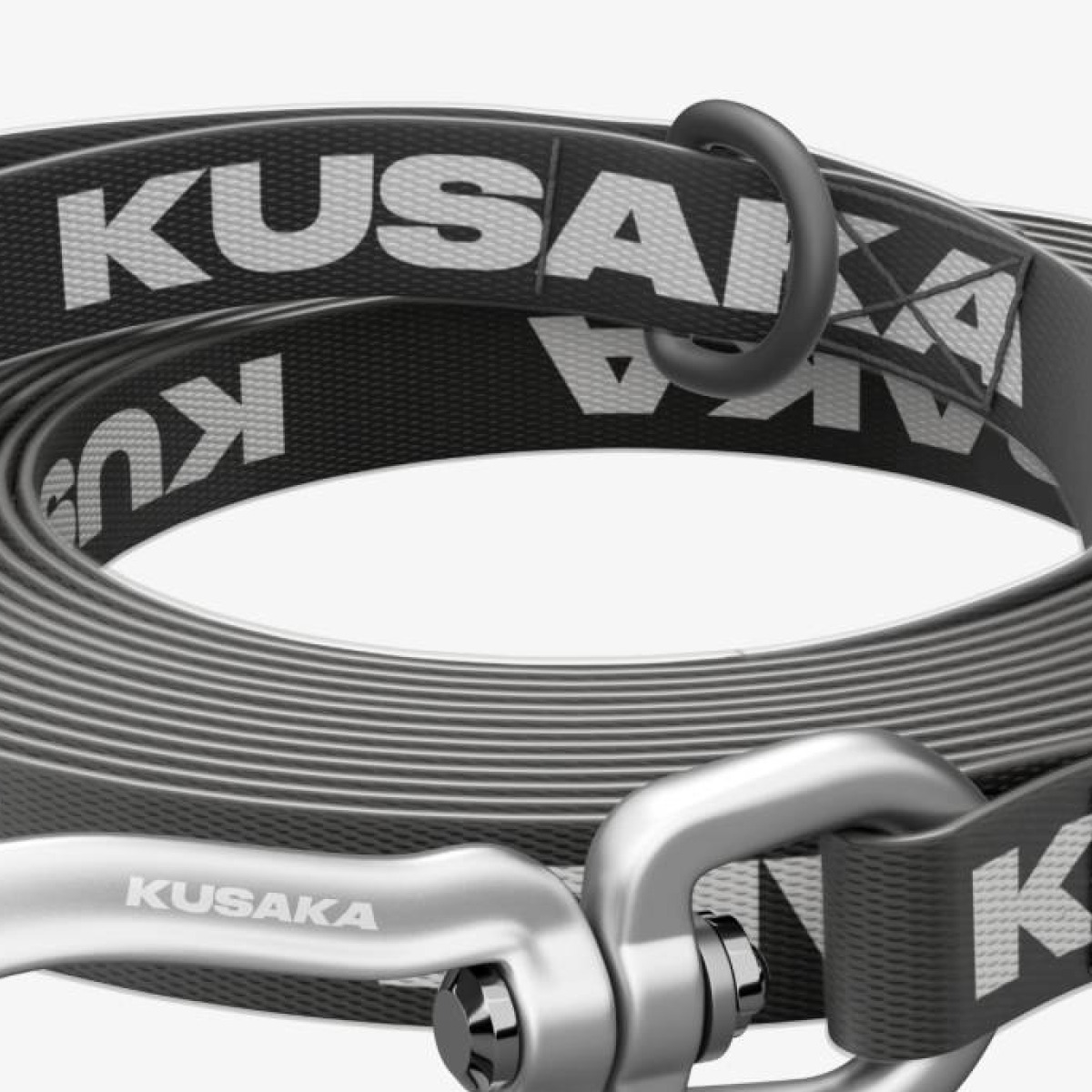
Kusaka is a brand of dog harnesses, leashes, and collars. The typography in its identity and on its website is handled using Druk Wide by Commercial Type, with Cyrillic by CSTM Fonts.
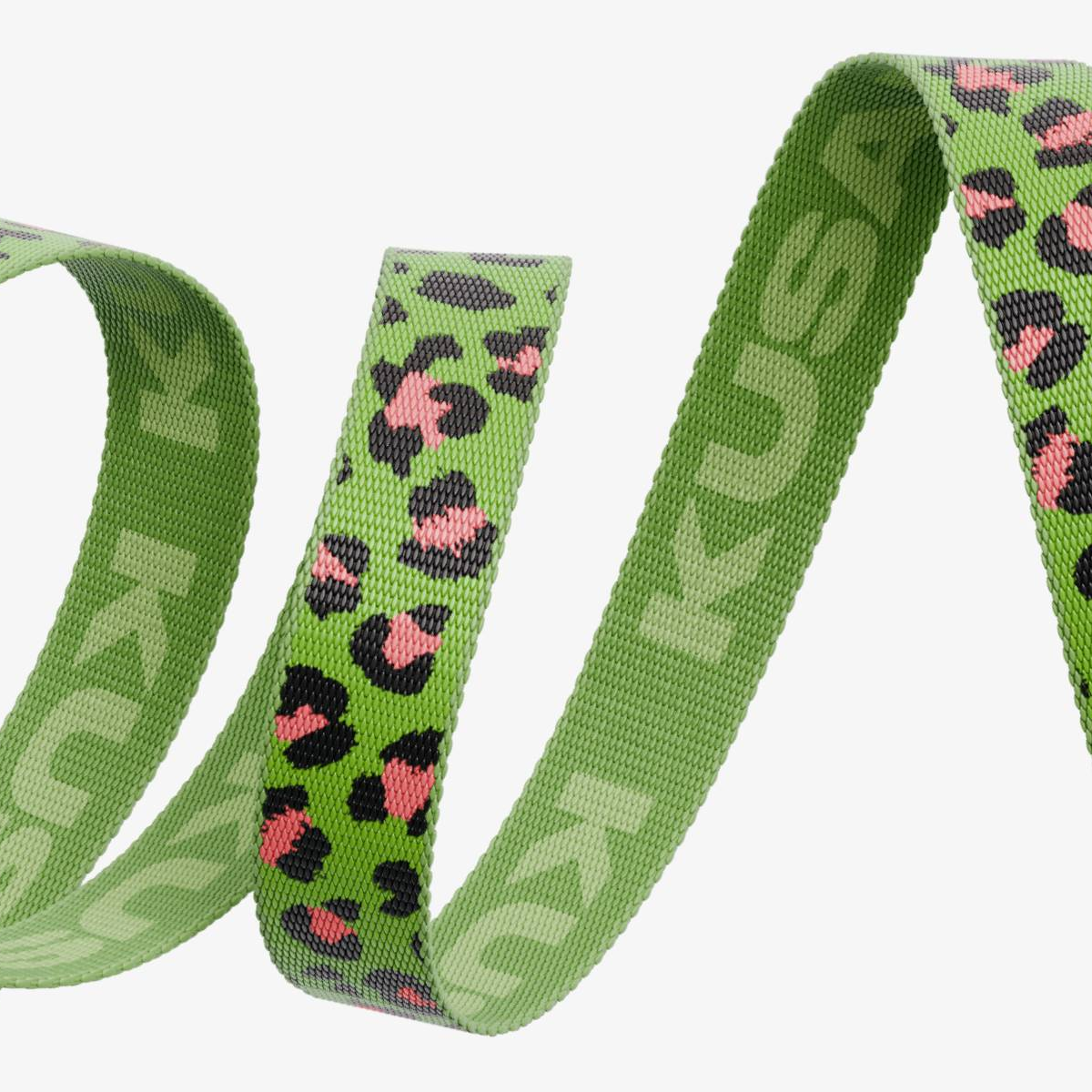
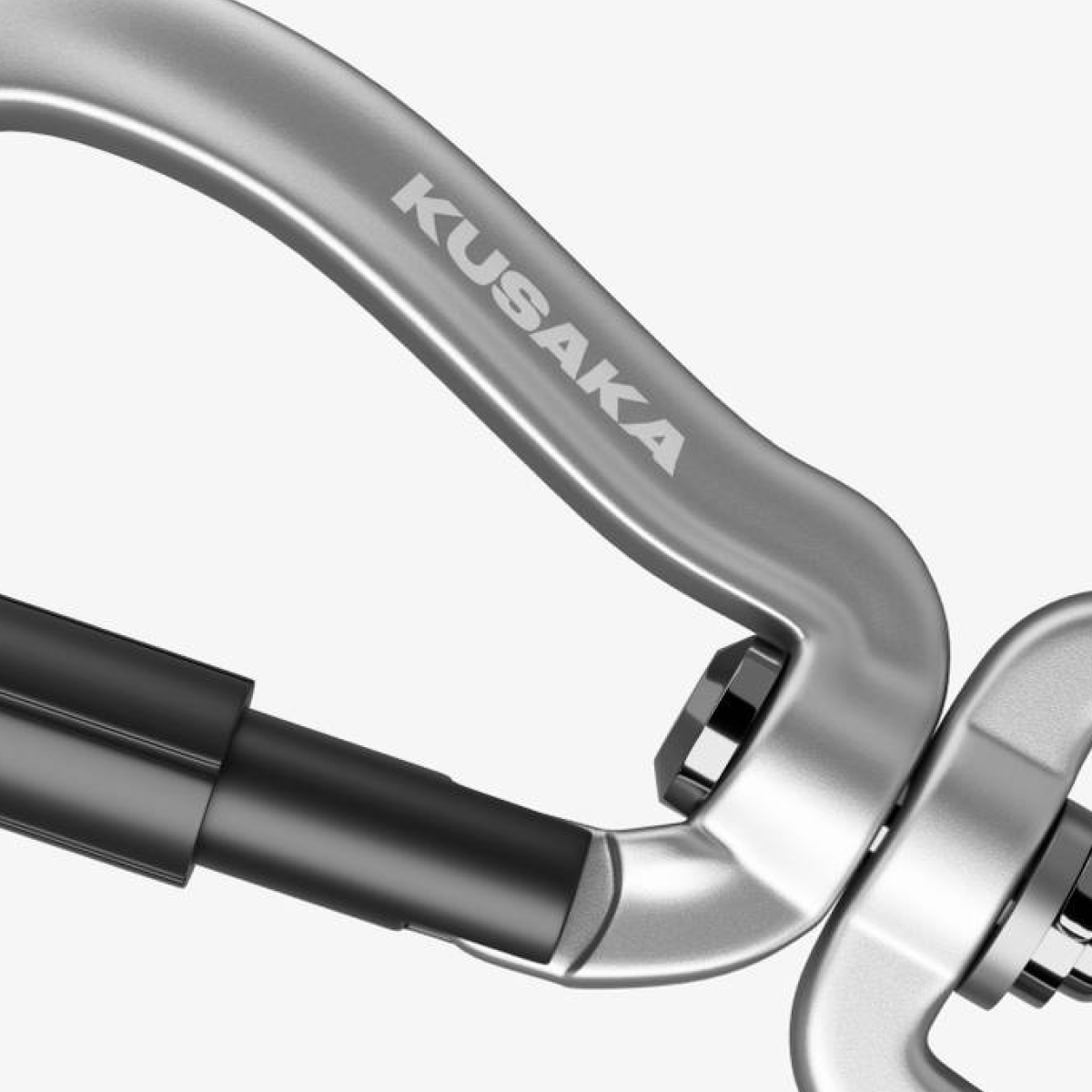
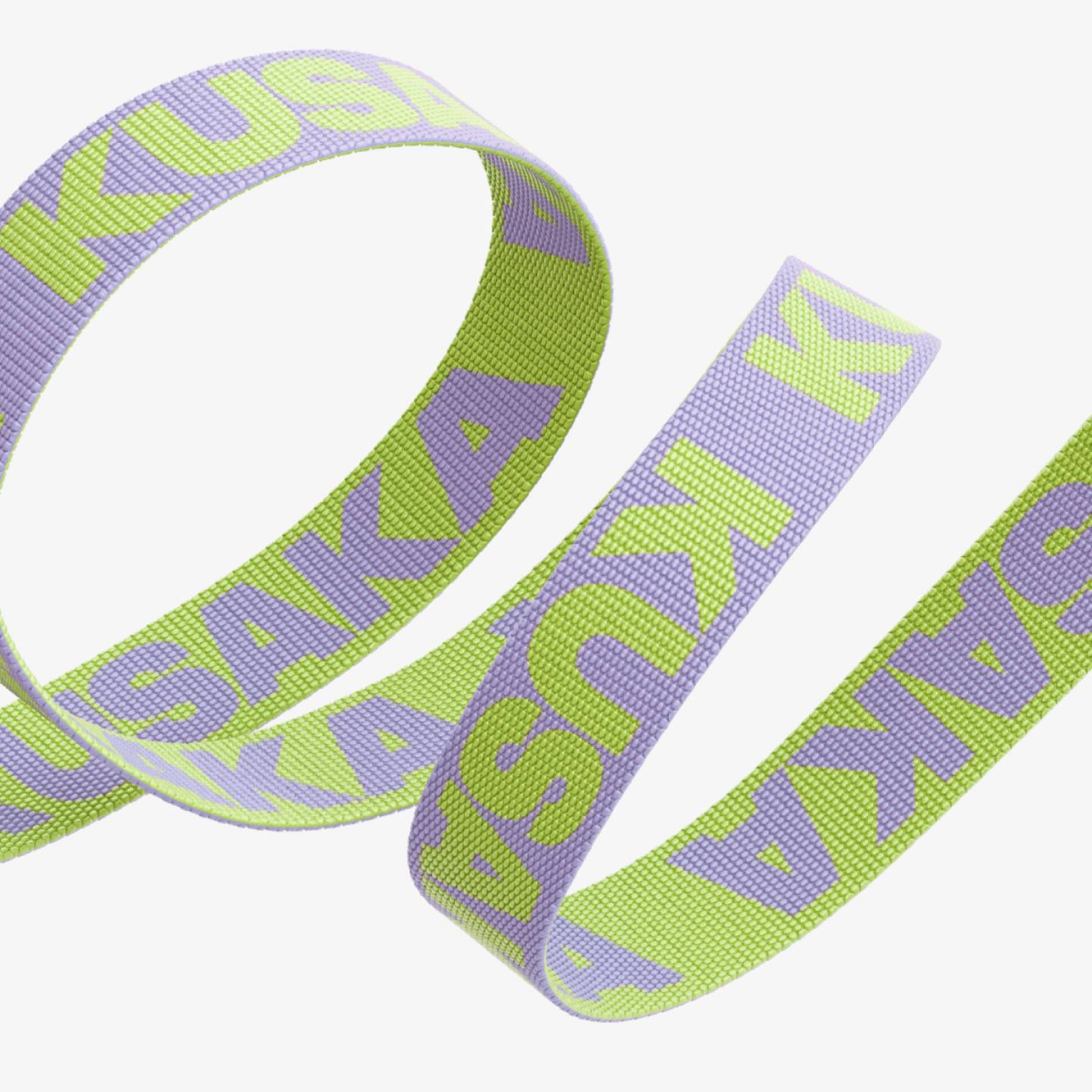
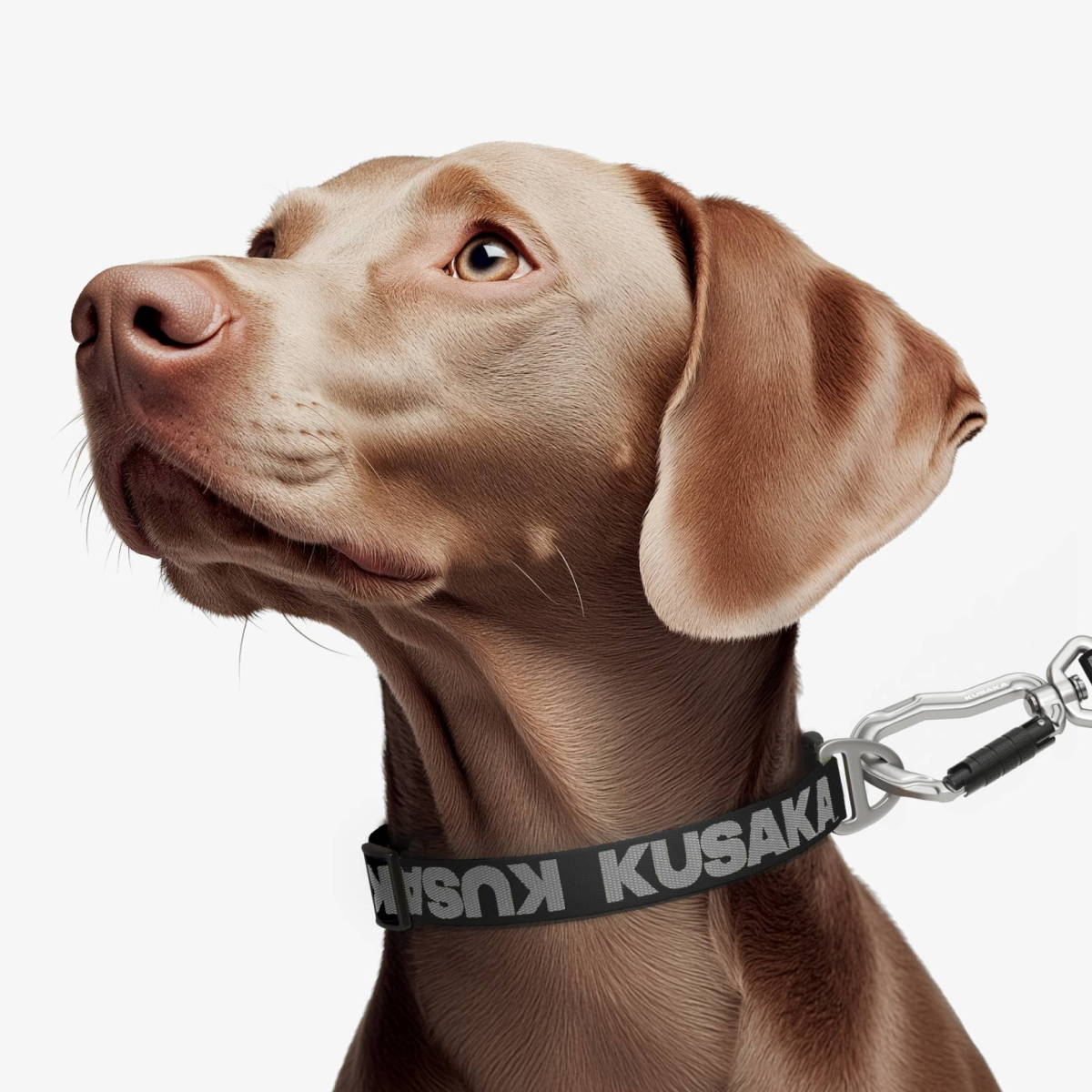
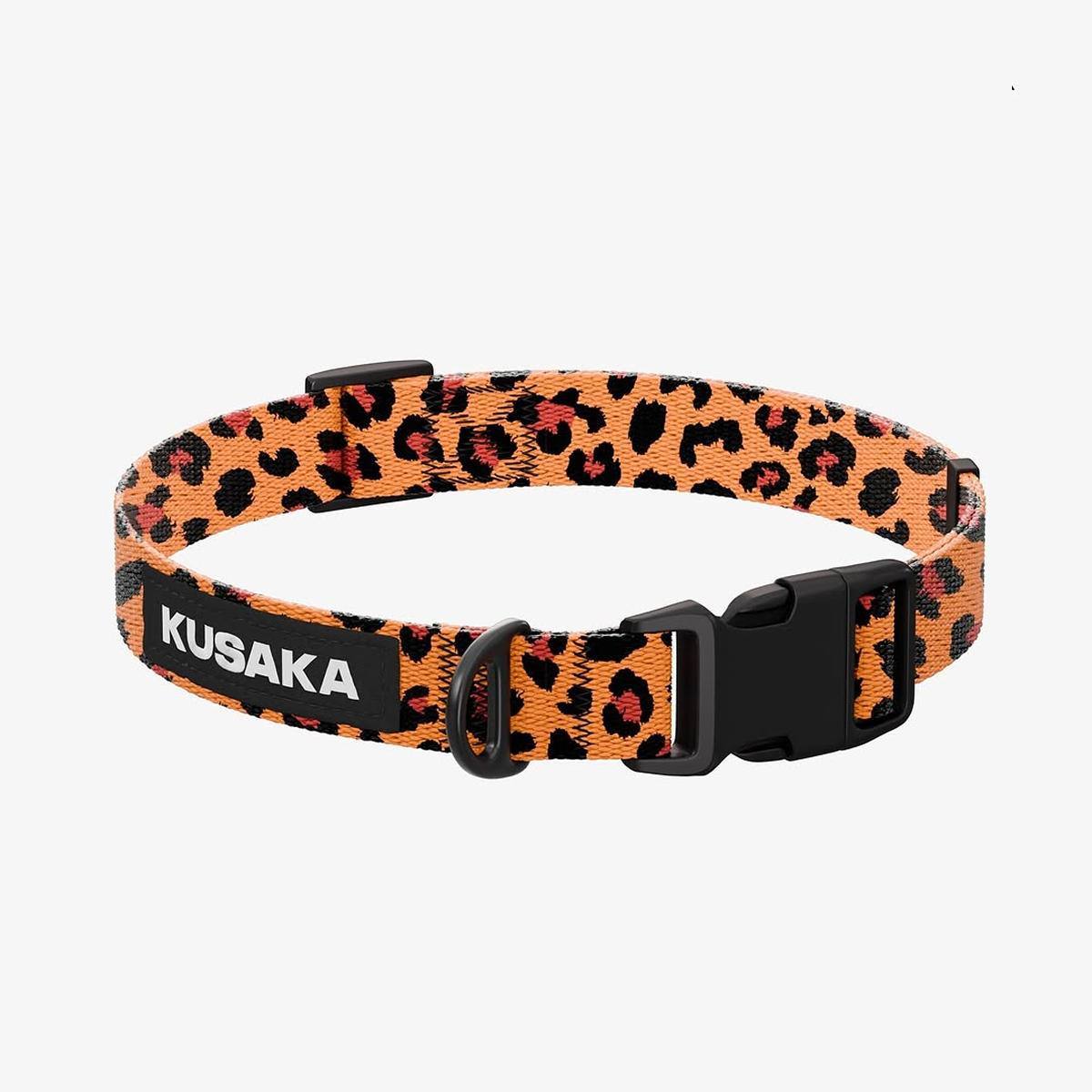
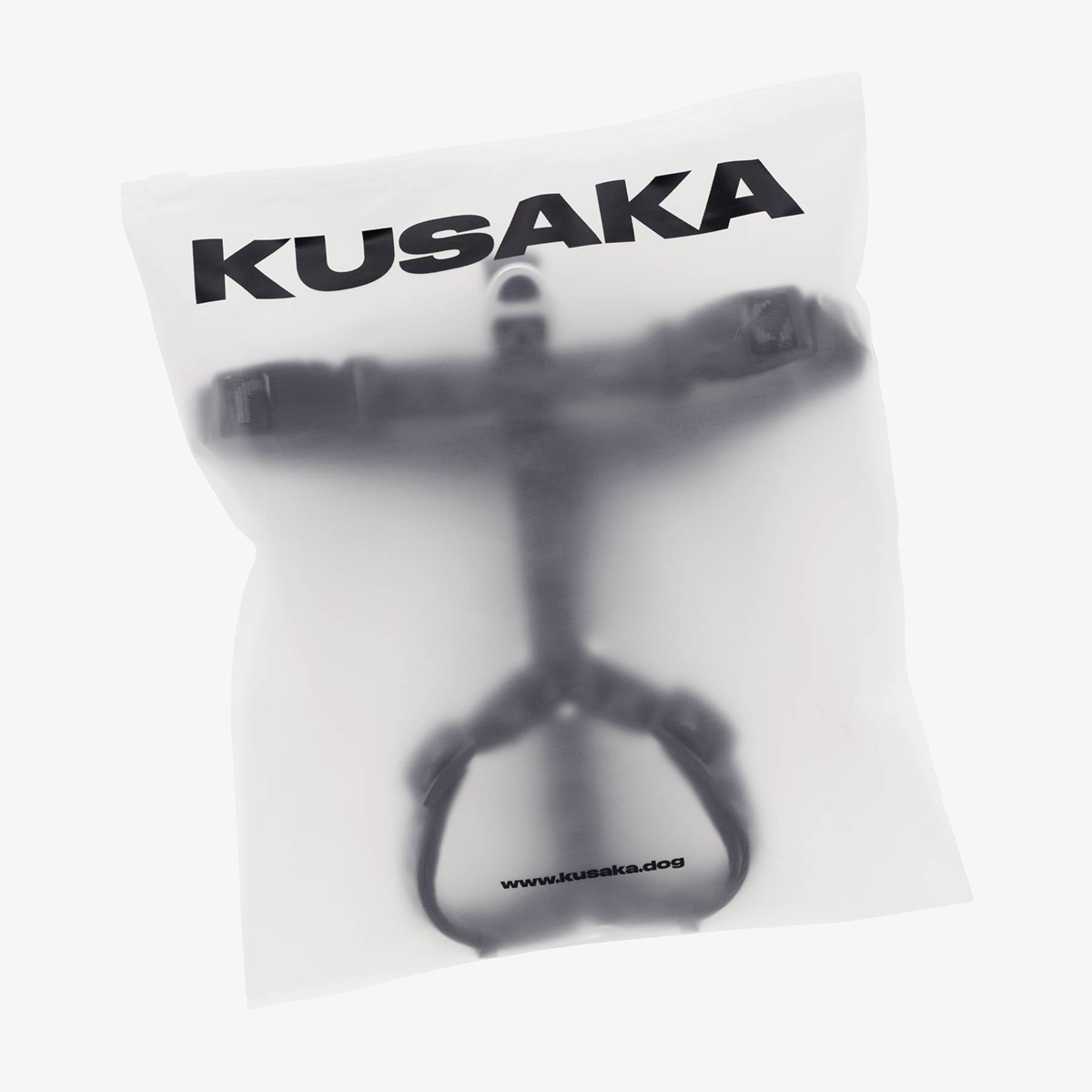
Druk is a collection of extremely narrow, extremely wide, and extremely heavy styles designed by Berton Hasebe for Bloomberg Businessweek. It was deliberately created without any styles of regular width or weights lighter than semibold, yet its text versions perform well even at the smallest sizes.